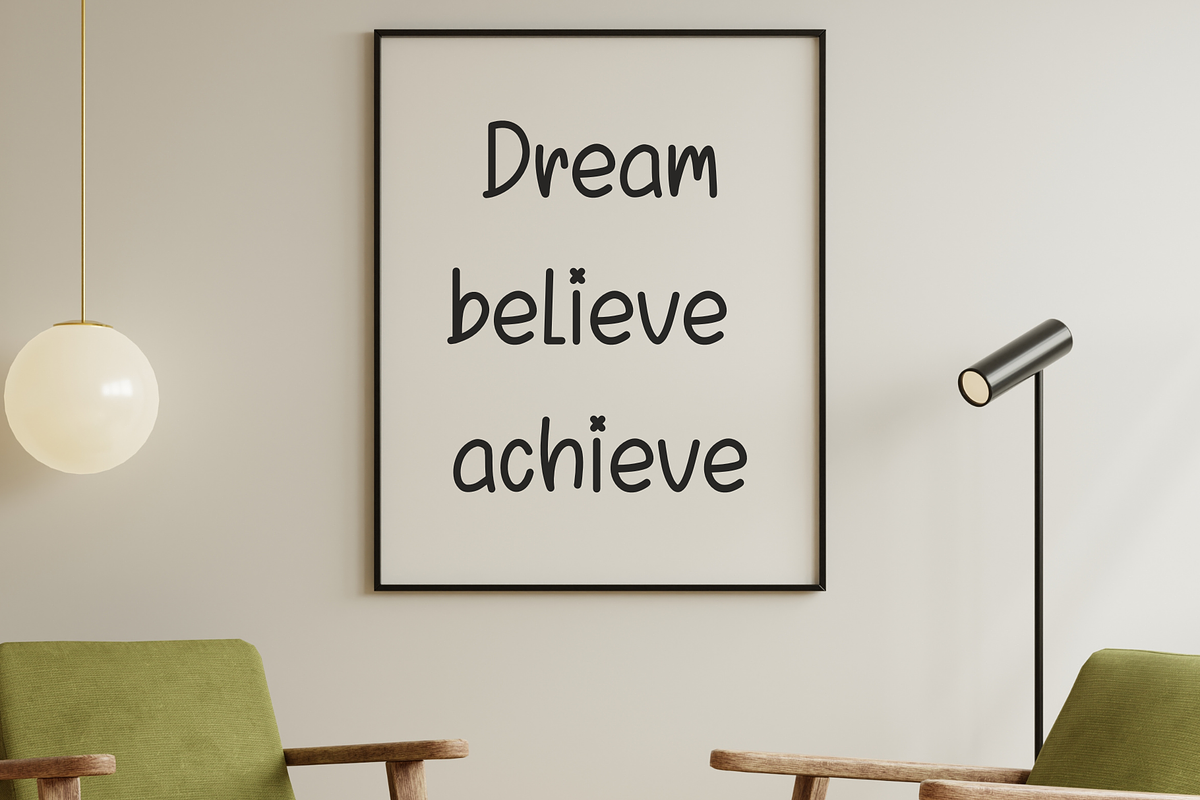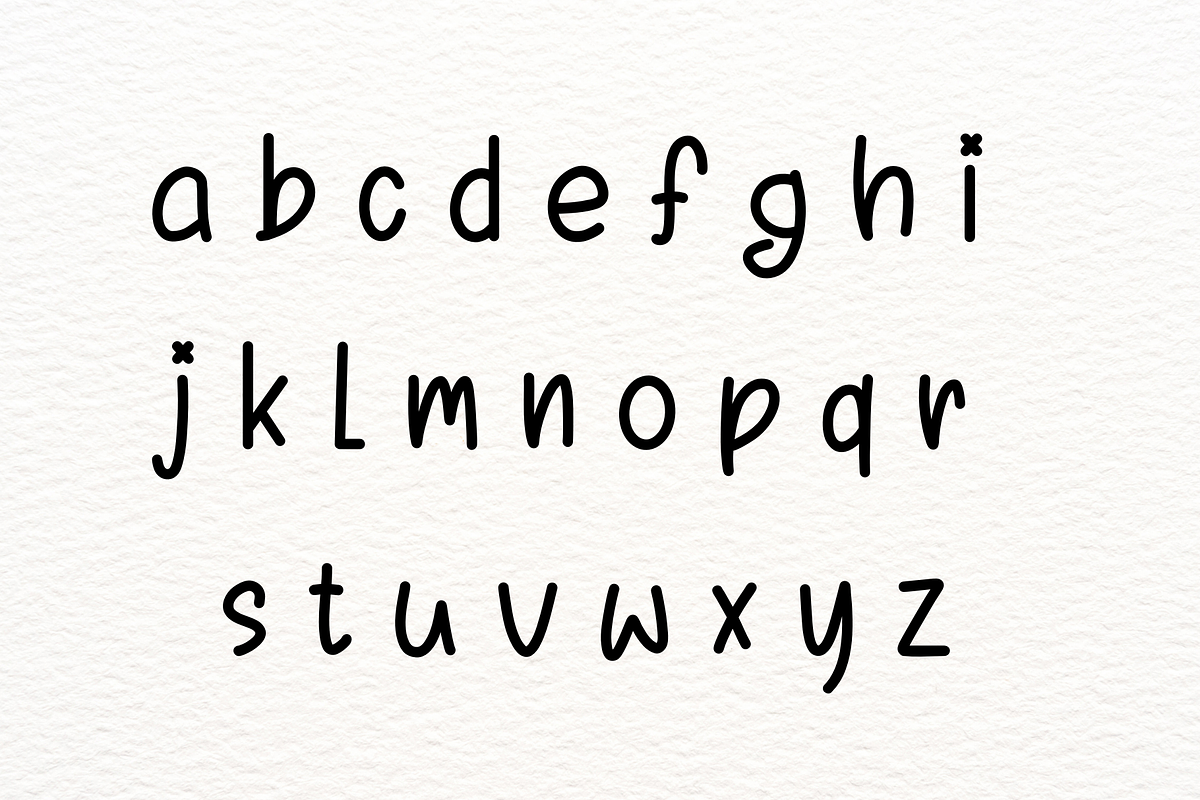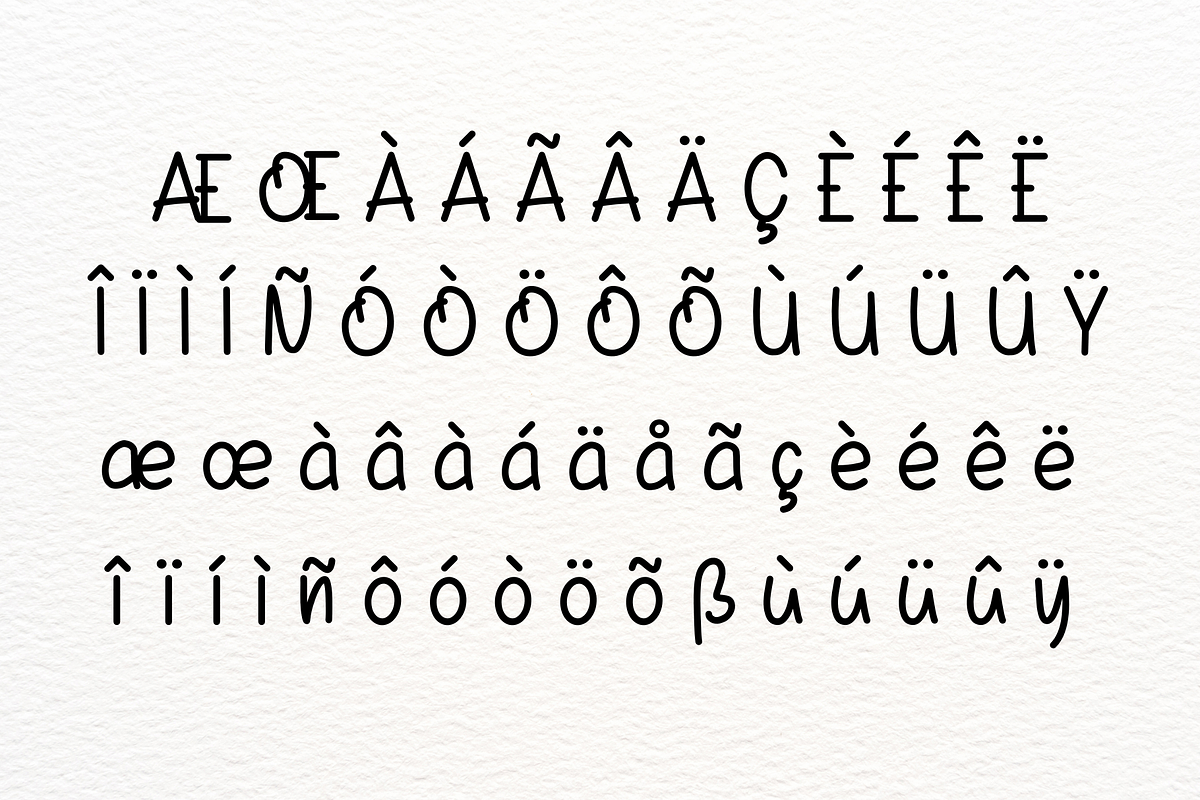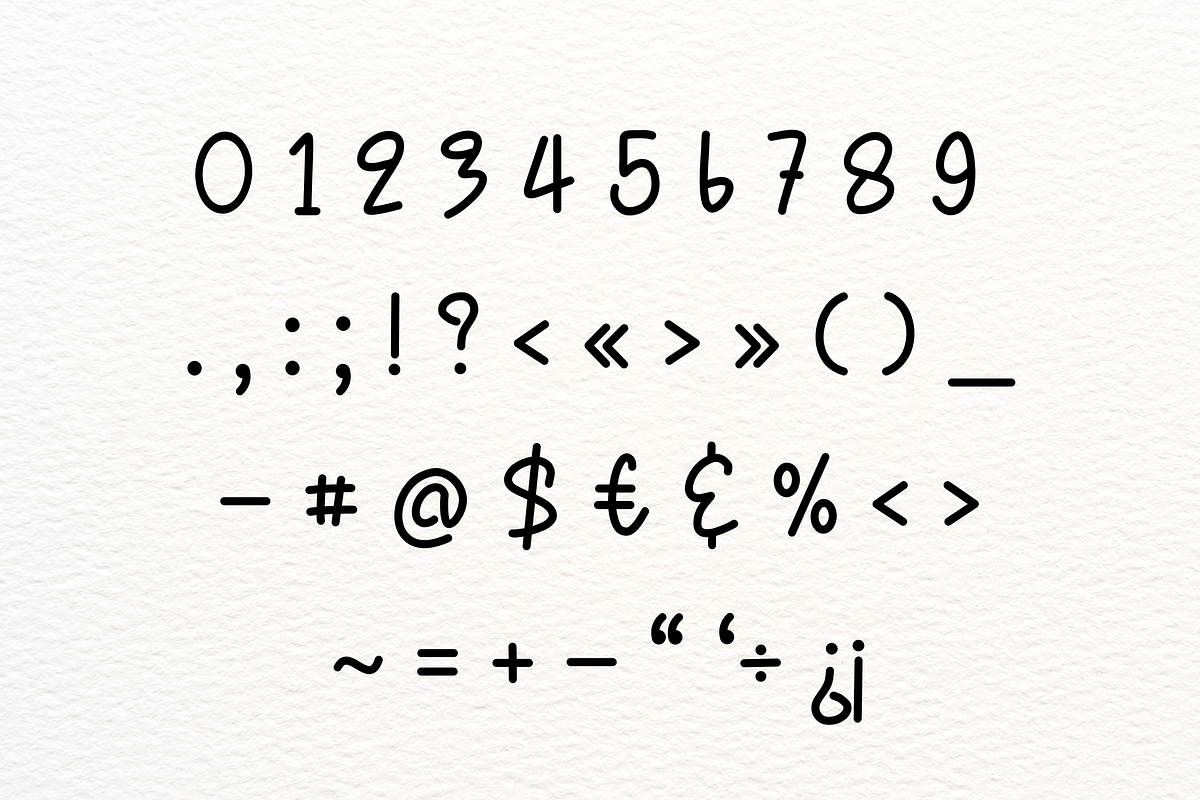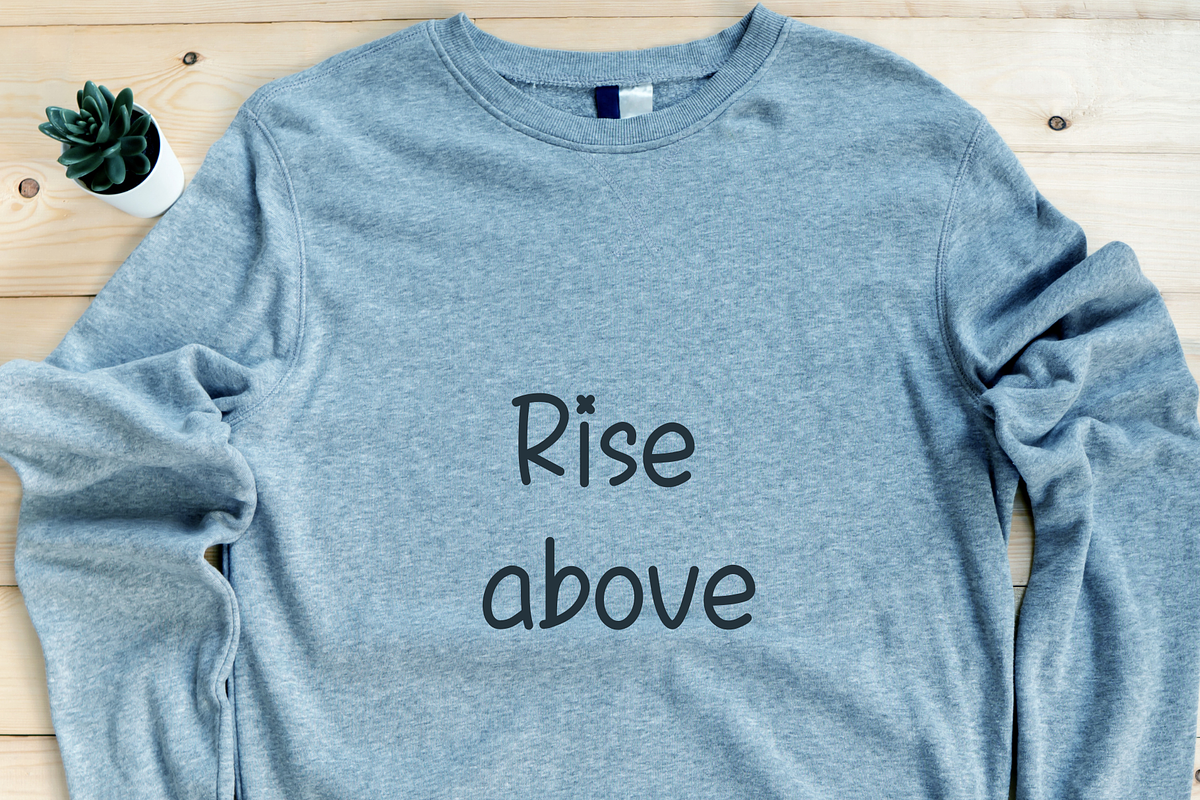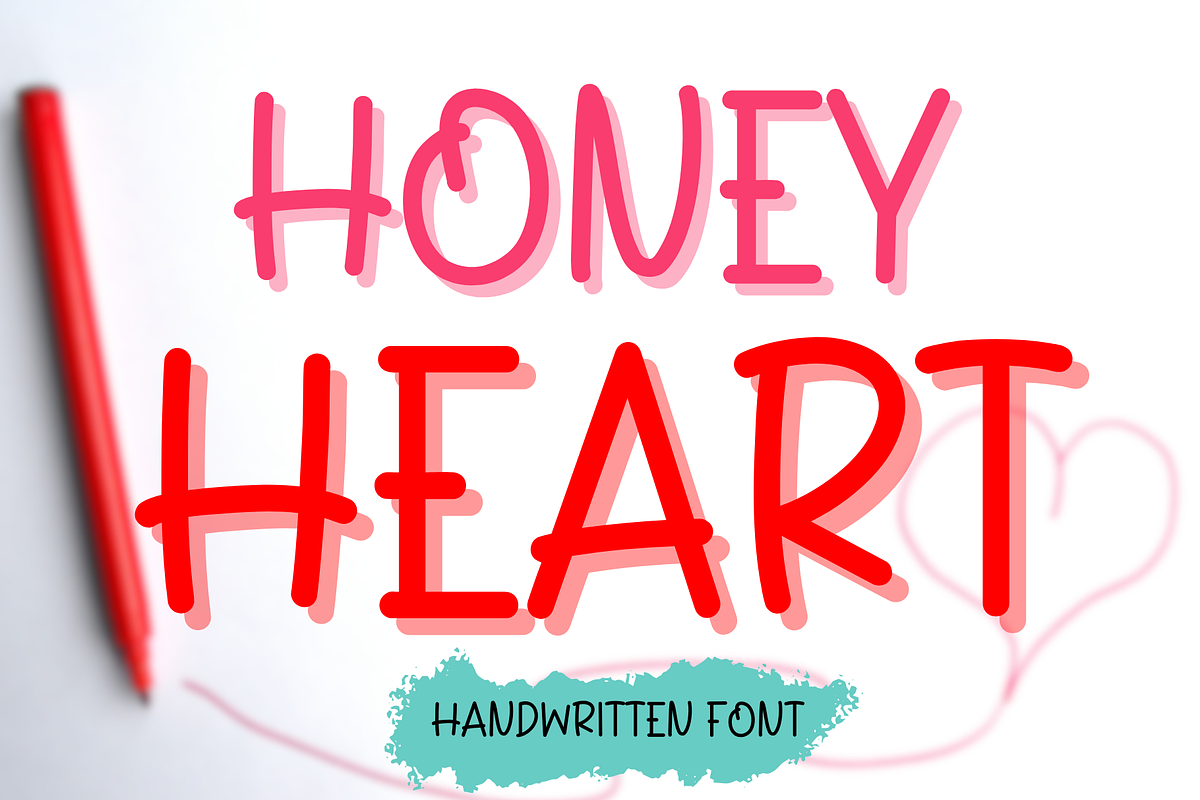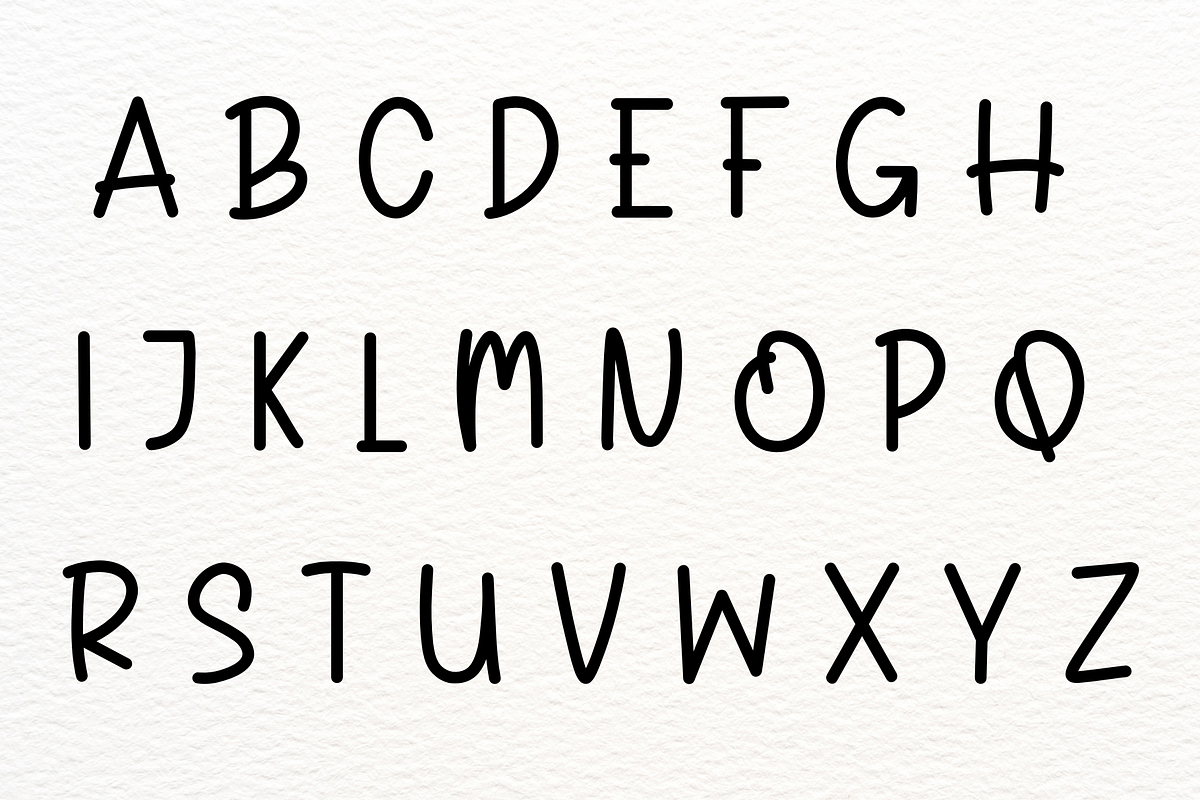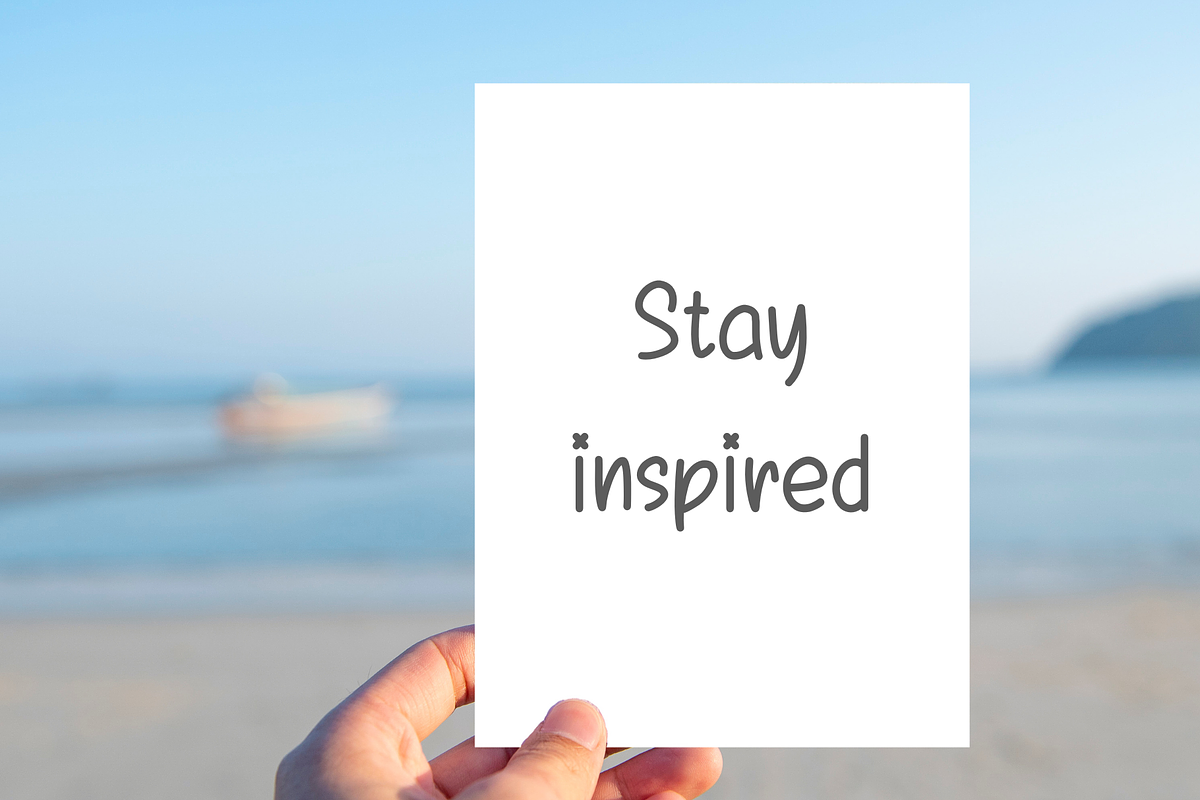
Honey heart
Honey Heart is a playful and charming handwritten font with a warm and whimsical feel. Featuring bold strokes and soft curves, this font is perfect for adding a touch of fun and creativity to your projects. Ideal for designs such as greeting cards, posters, children's books, packaging, branding, and social media graphics, Honey Heart will make your text stand out with its unique and friendly style. The font also includes uppercase letters, providing versatility for various creative needs.